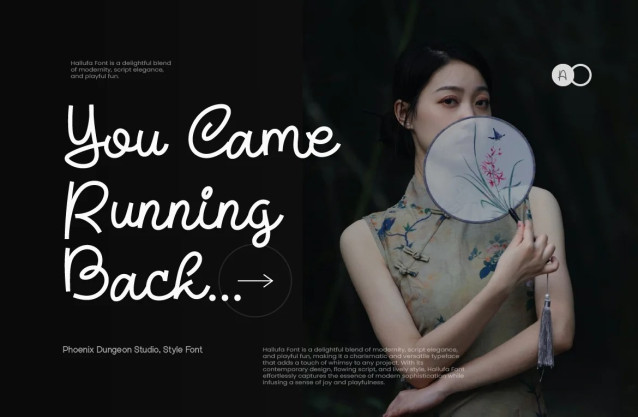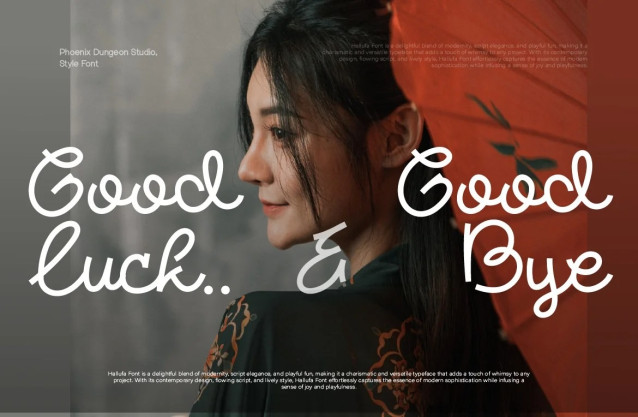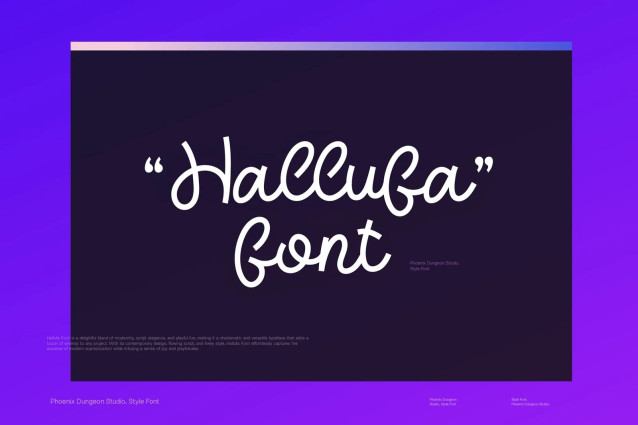
Hallufa Script Font
Hallufa Script Font is a modern script font that beautifully merges aesthetic elegance with minimalist design, ideal for UI/UX projects. Its smooth, flowing letterforms bring a sense of sophistication and style, while maintaining a clean and uncluttered look. Perfect for enhancing digital interfaces, Hallufa’s balanced script design ensures readability and functionality, offering a graceful yet contemporary feel. The font’s minimalist curves and subtle elegance make it a versatile choice for beauty, lifestyle, or creative projects, where both form and function are essential. Hallufa adds a refined, modern touch to any UI/UX design, creating a seamless, aesthetically pleasing user experience.